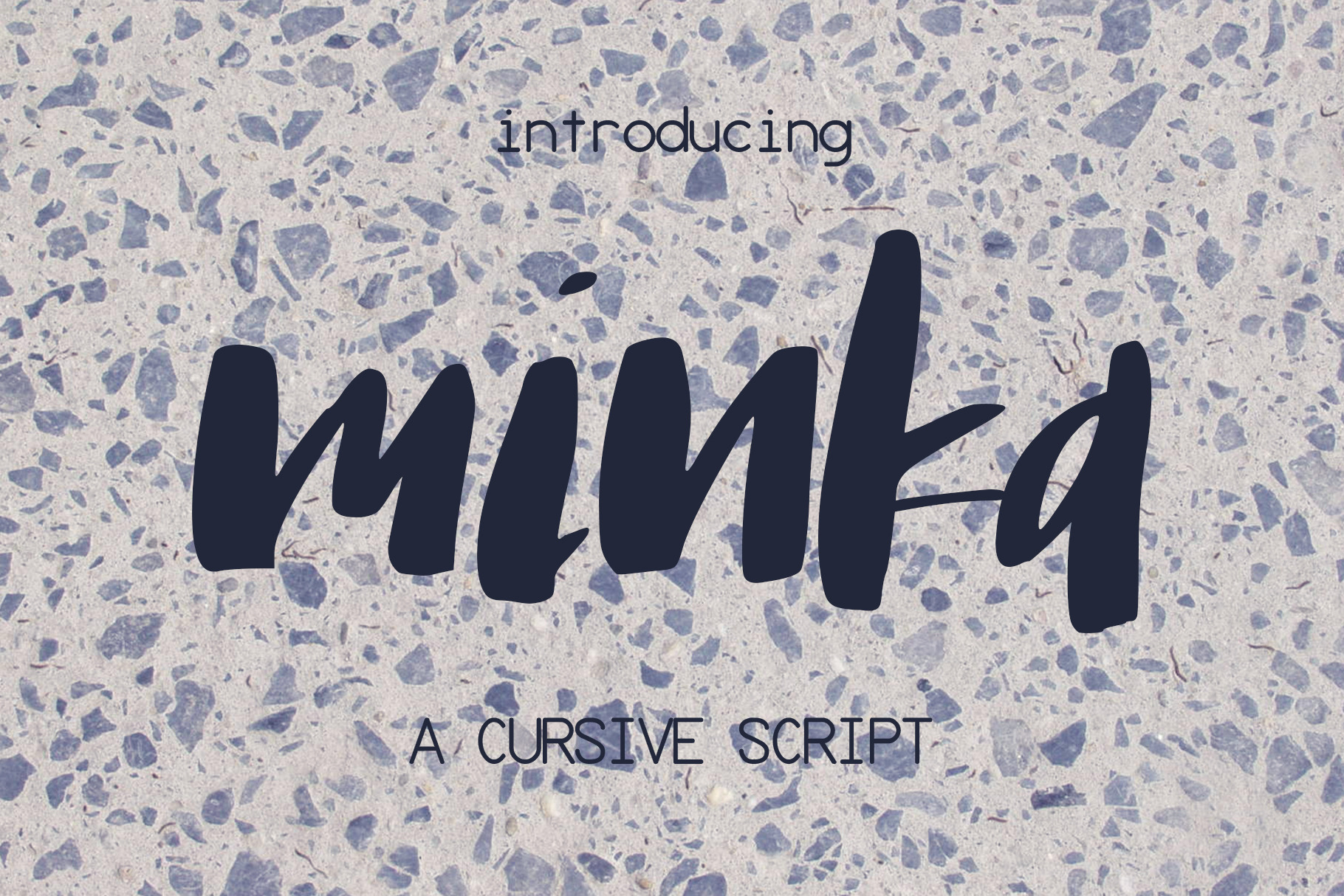
Minka Font
Introducing Minka, a cute cursive script.💗 Perfect for any graphic and logo designs, baby shower and birthday invitations.
Minka font contains uppercase & lowercase characters, numbers and punctuations.